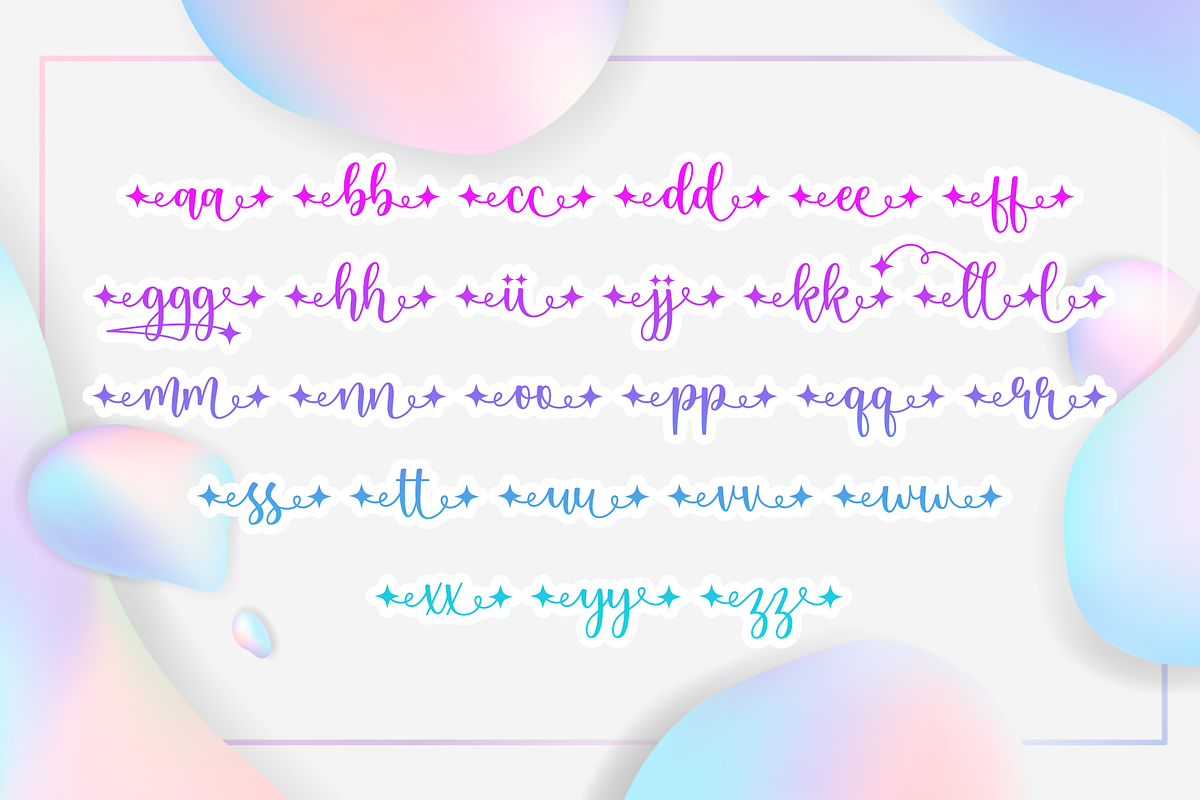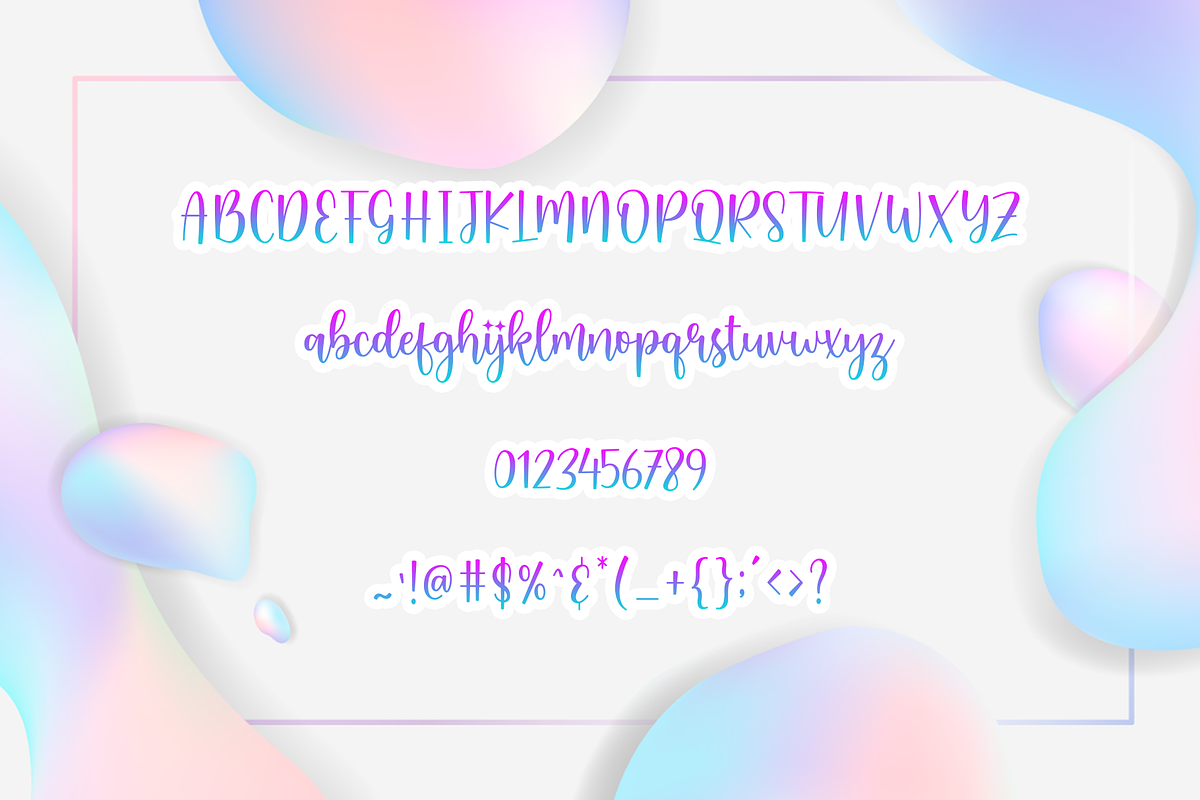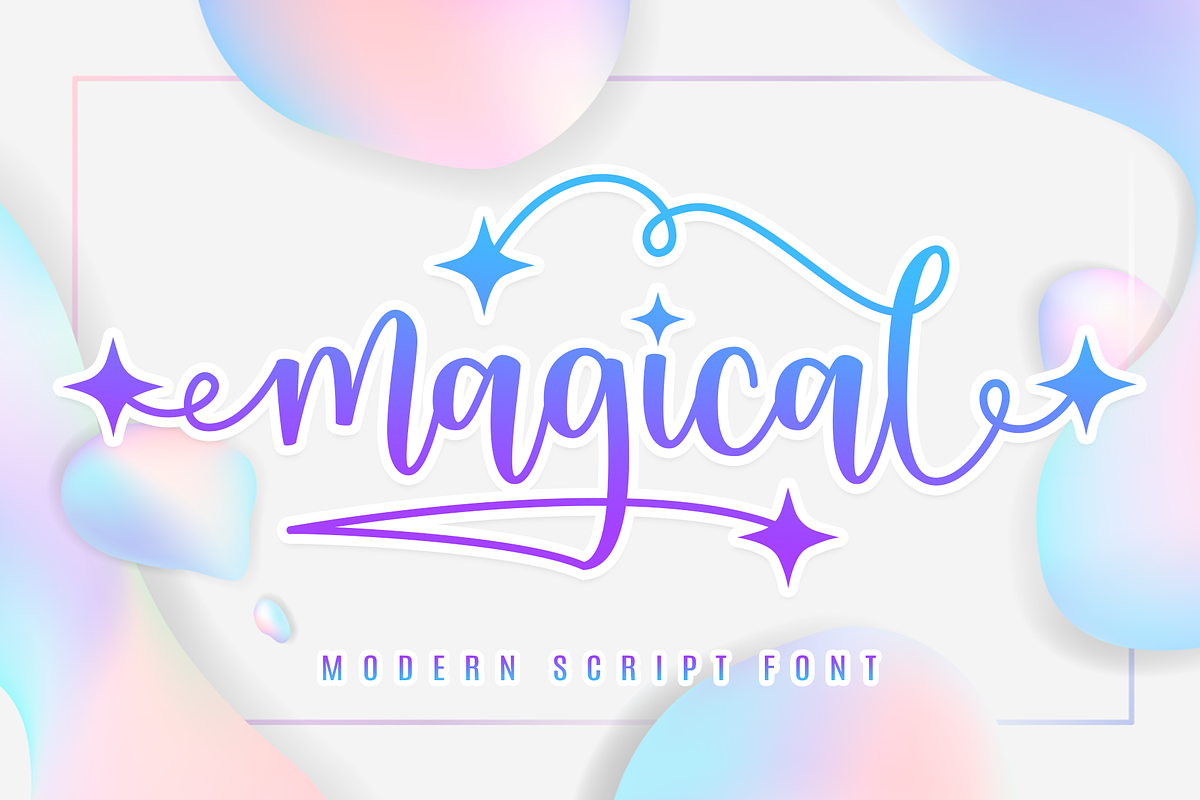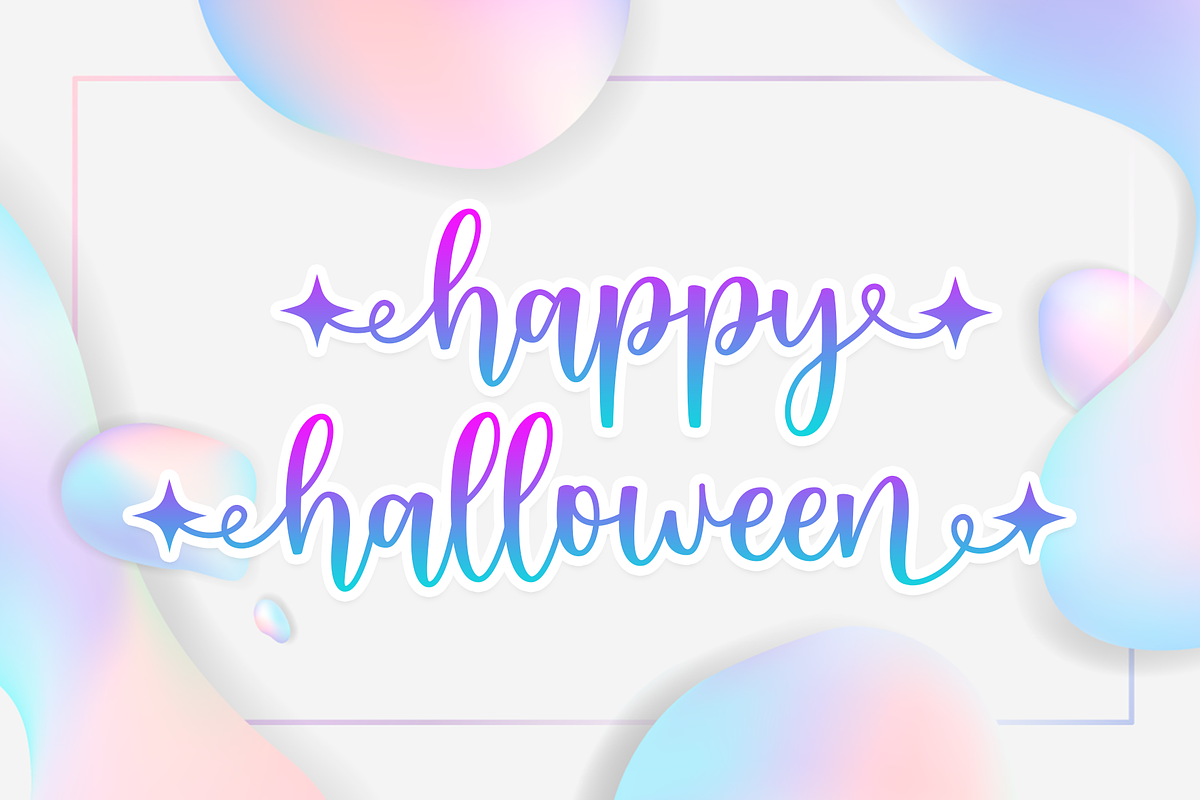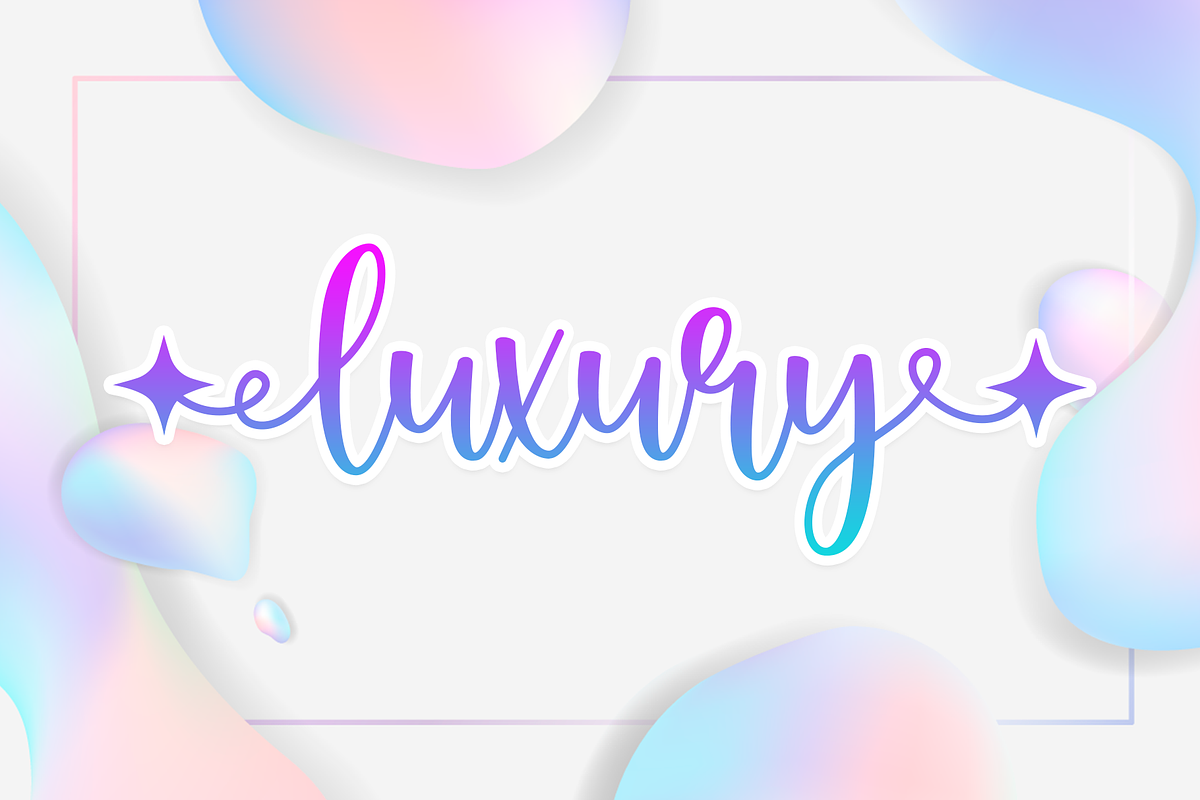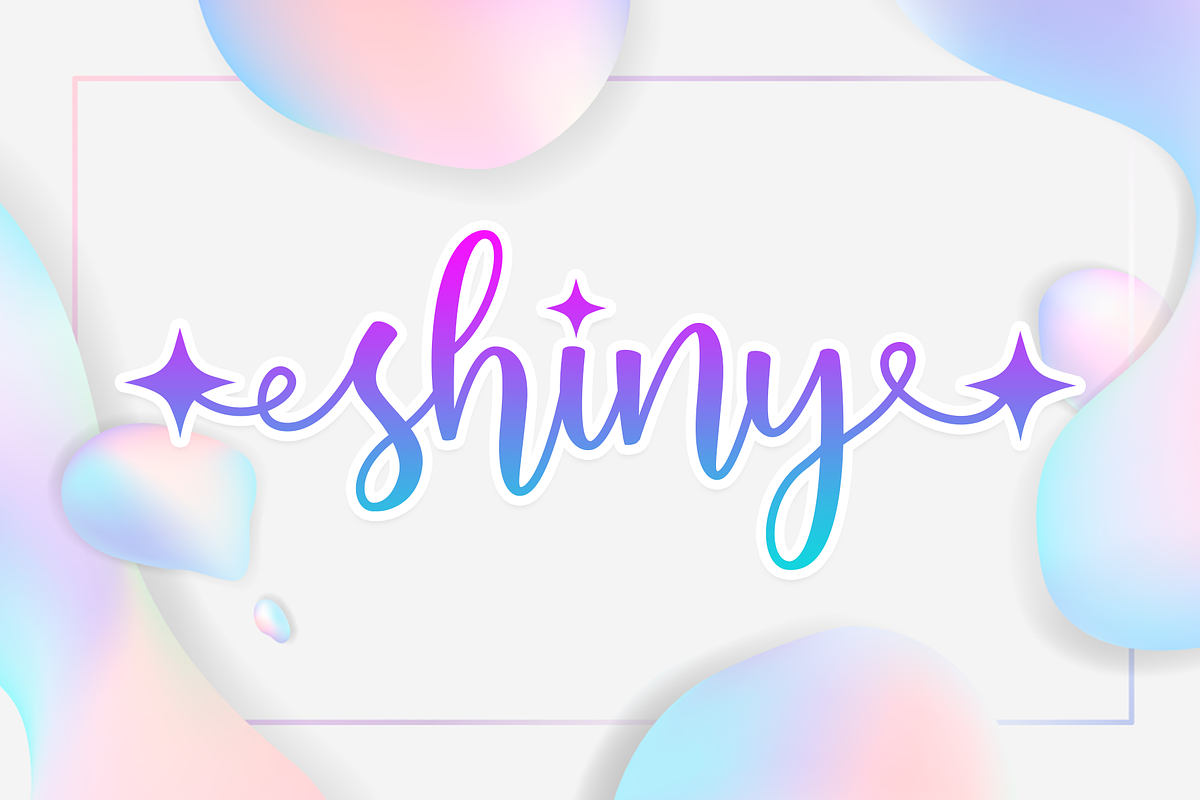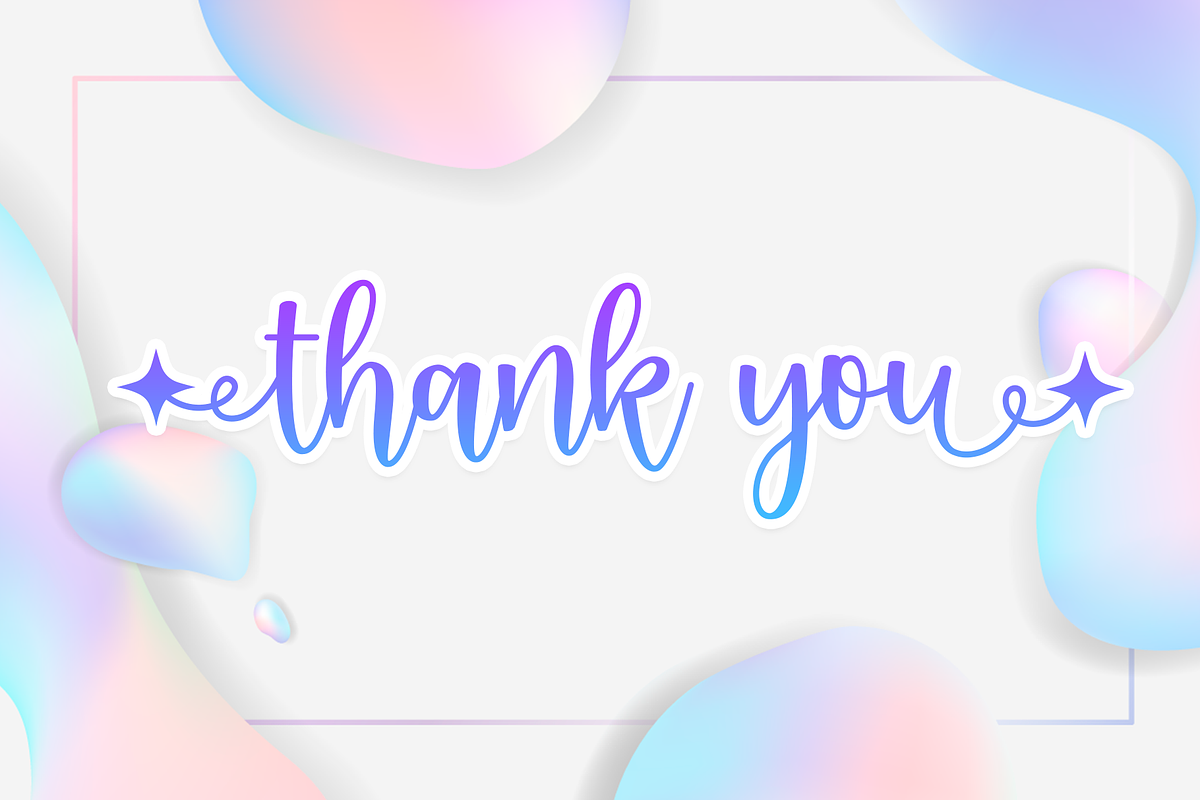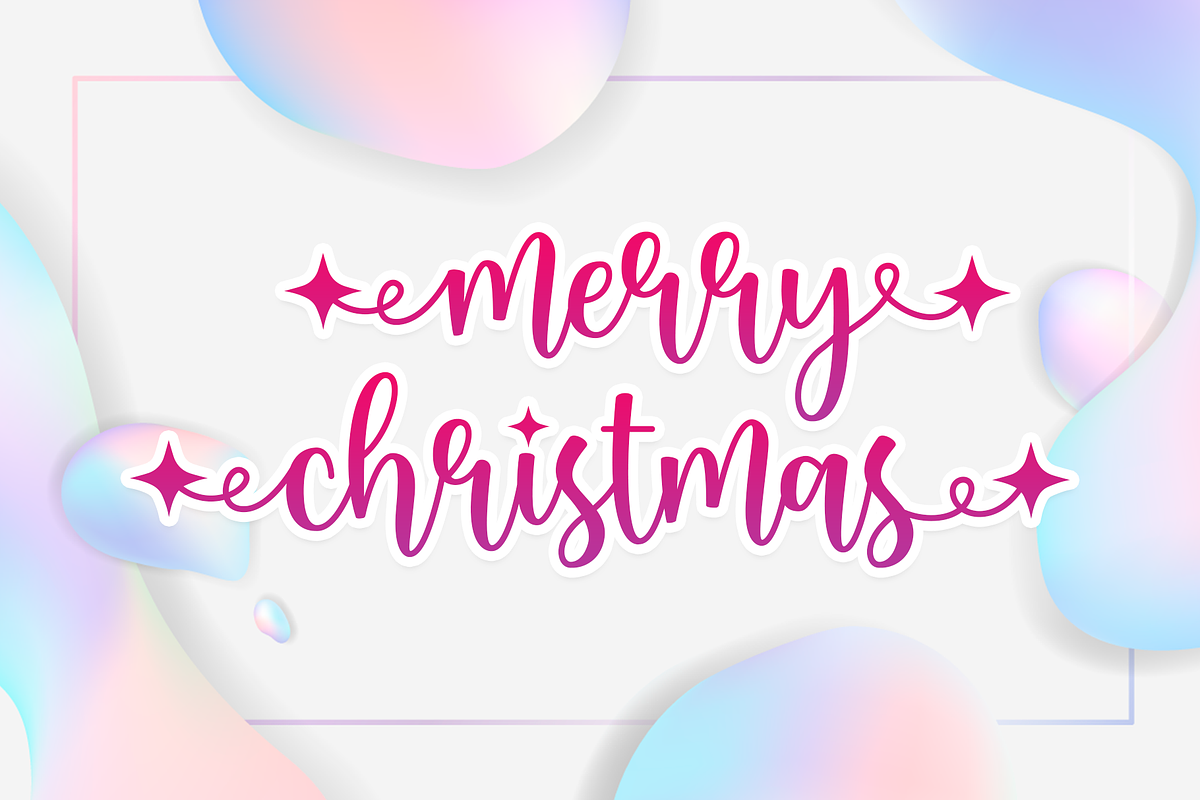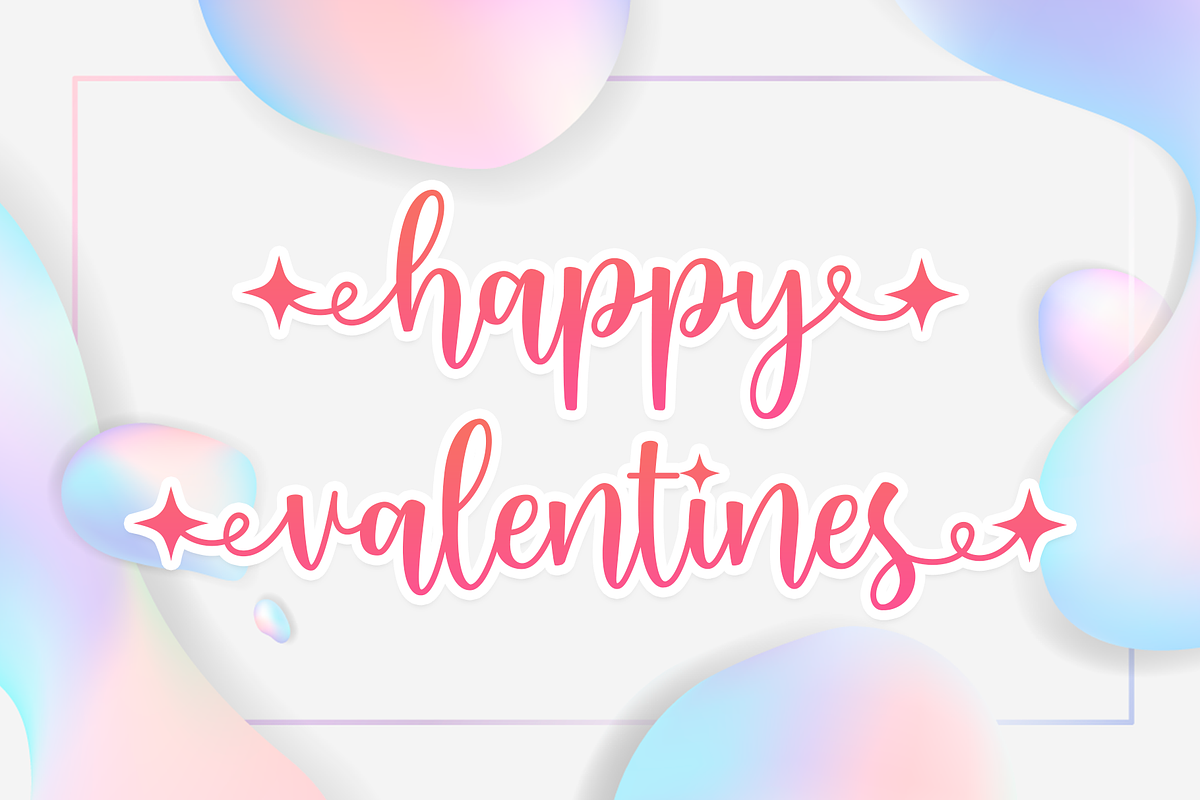
Magical
Magical is a beautiful script font filled with colorful magic, bringing unforgettable memories with every stroke. It will become a miracle in your hands!